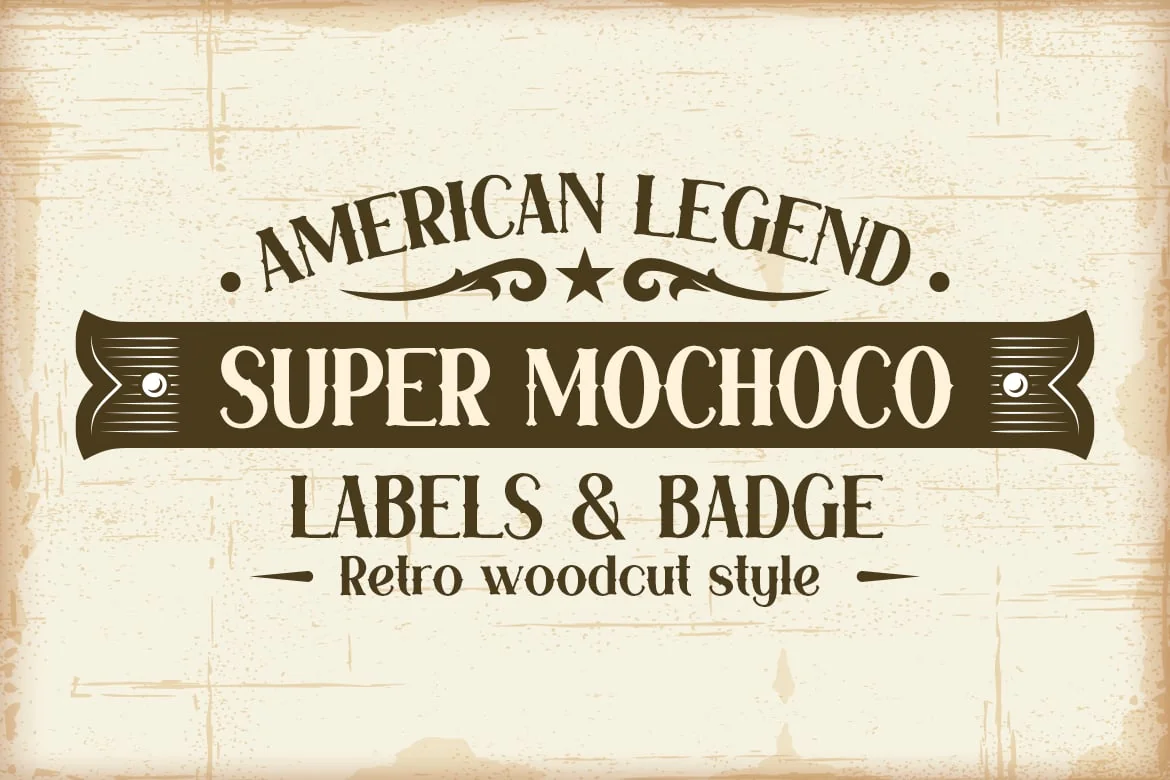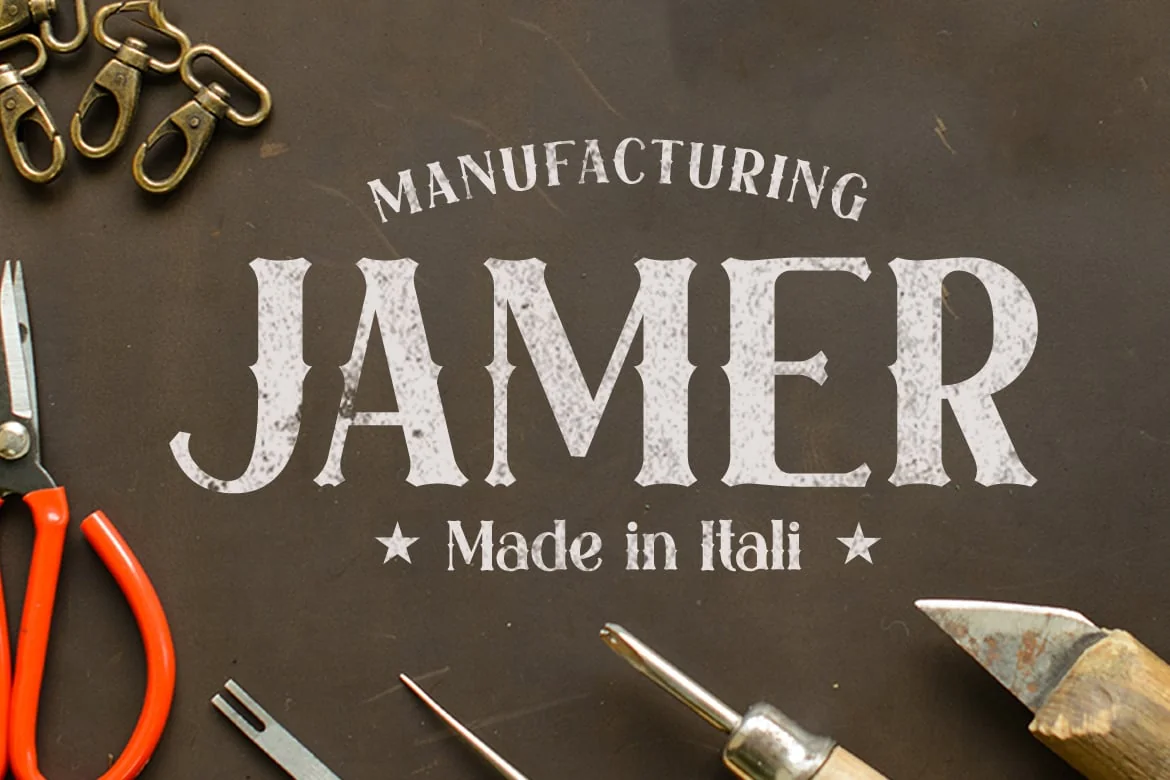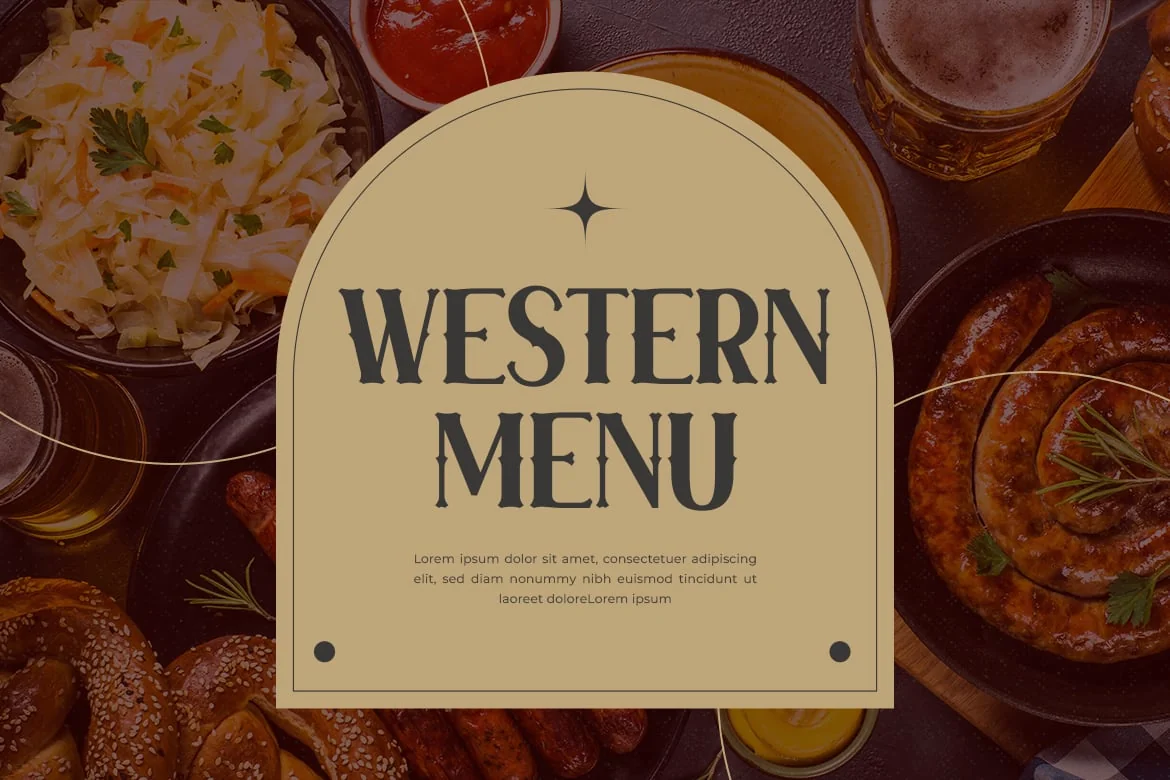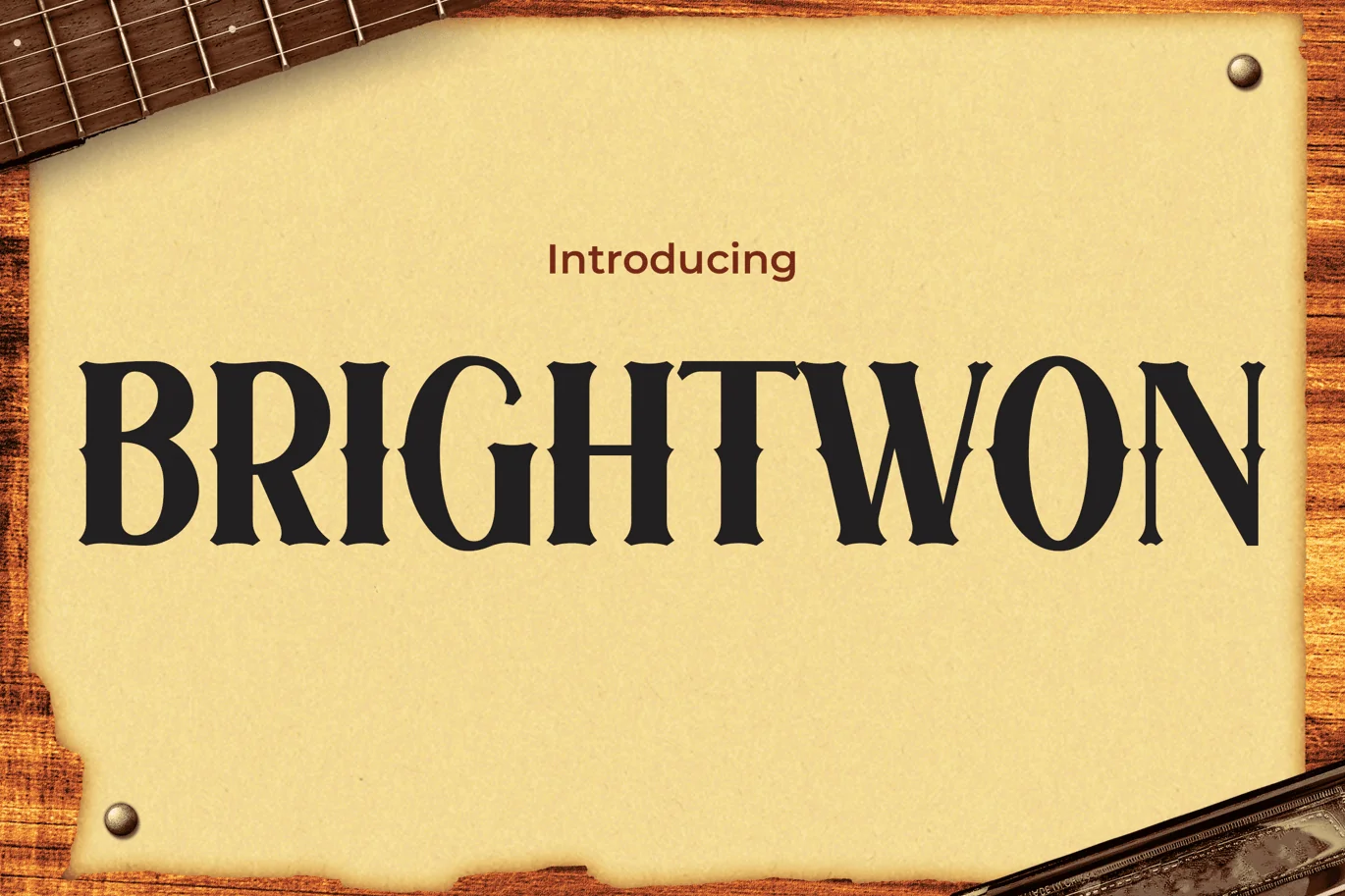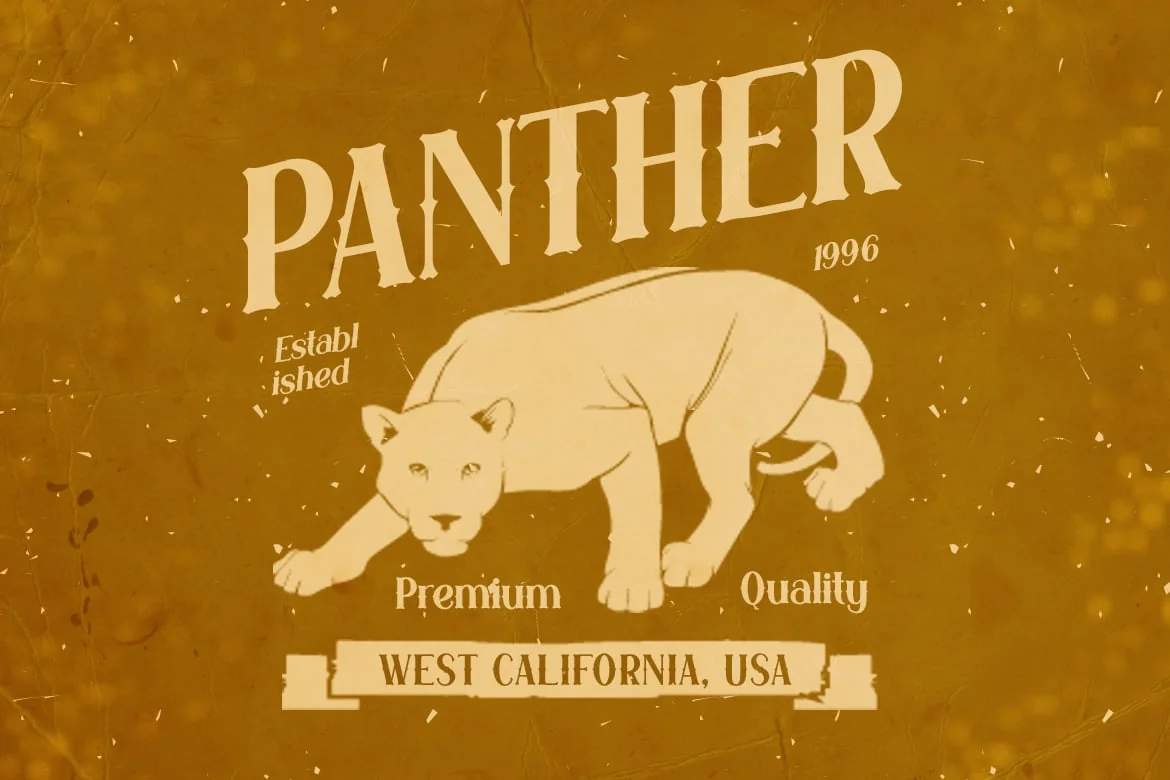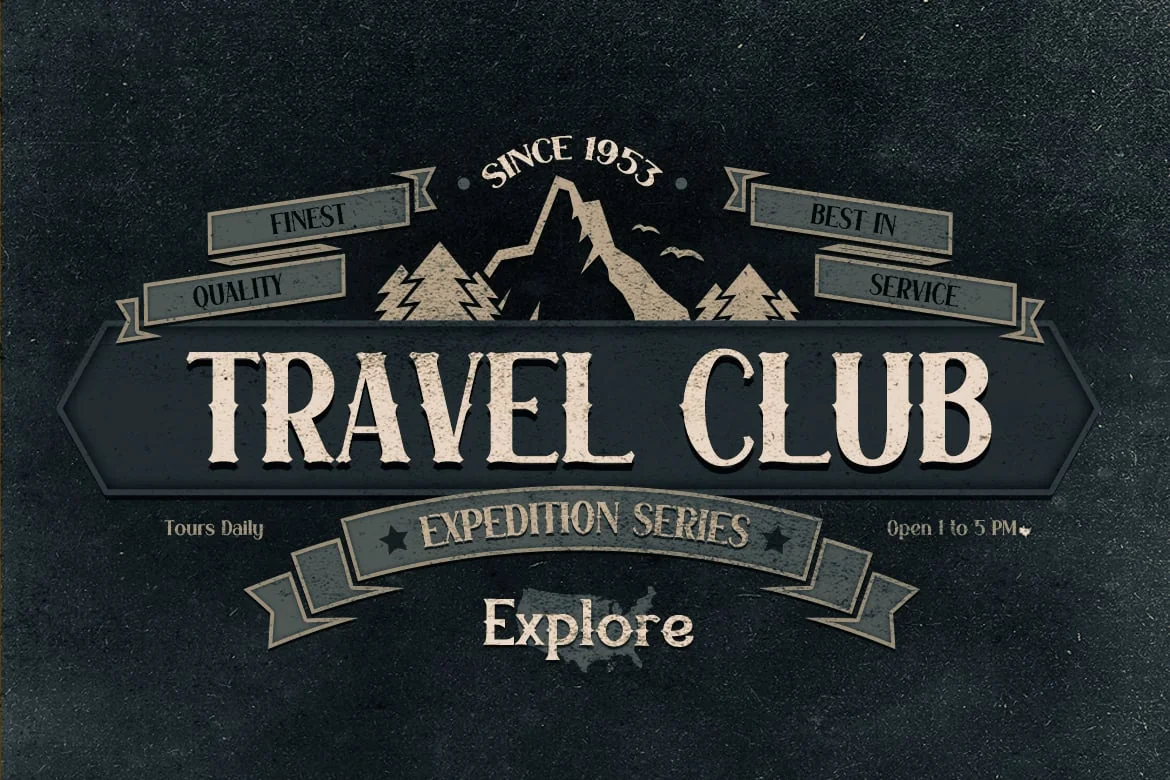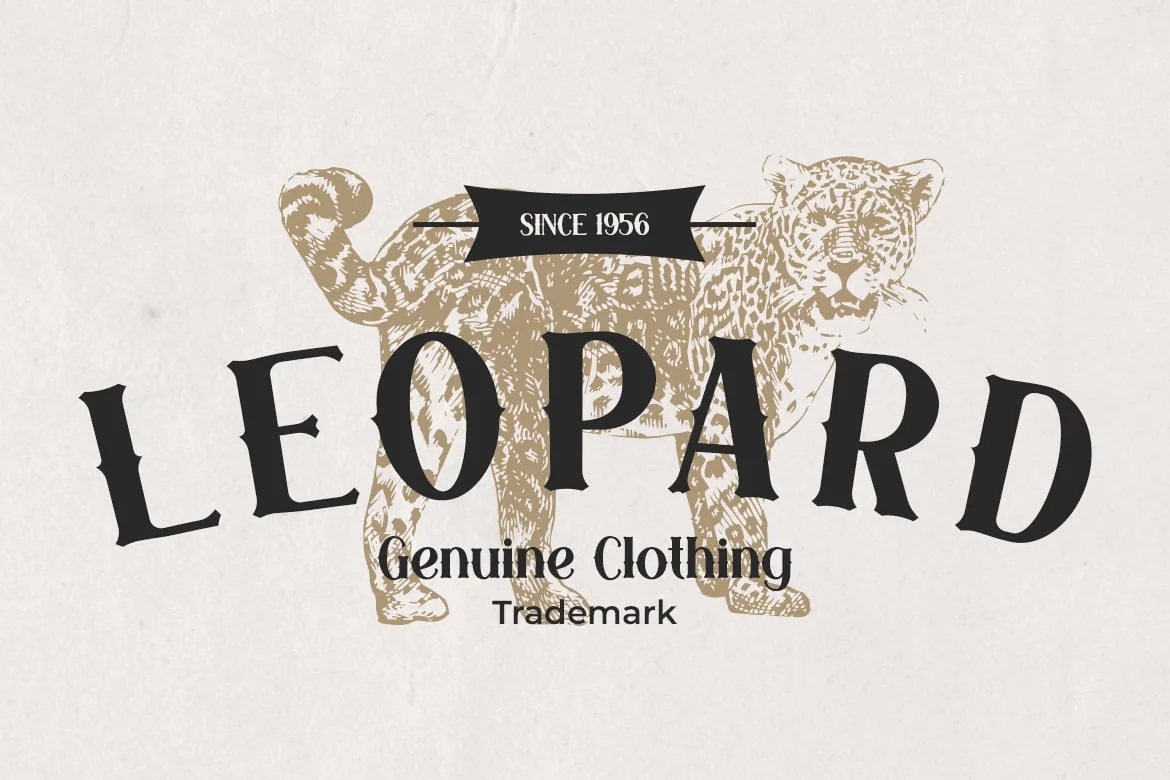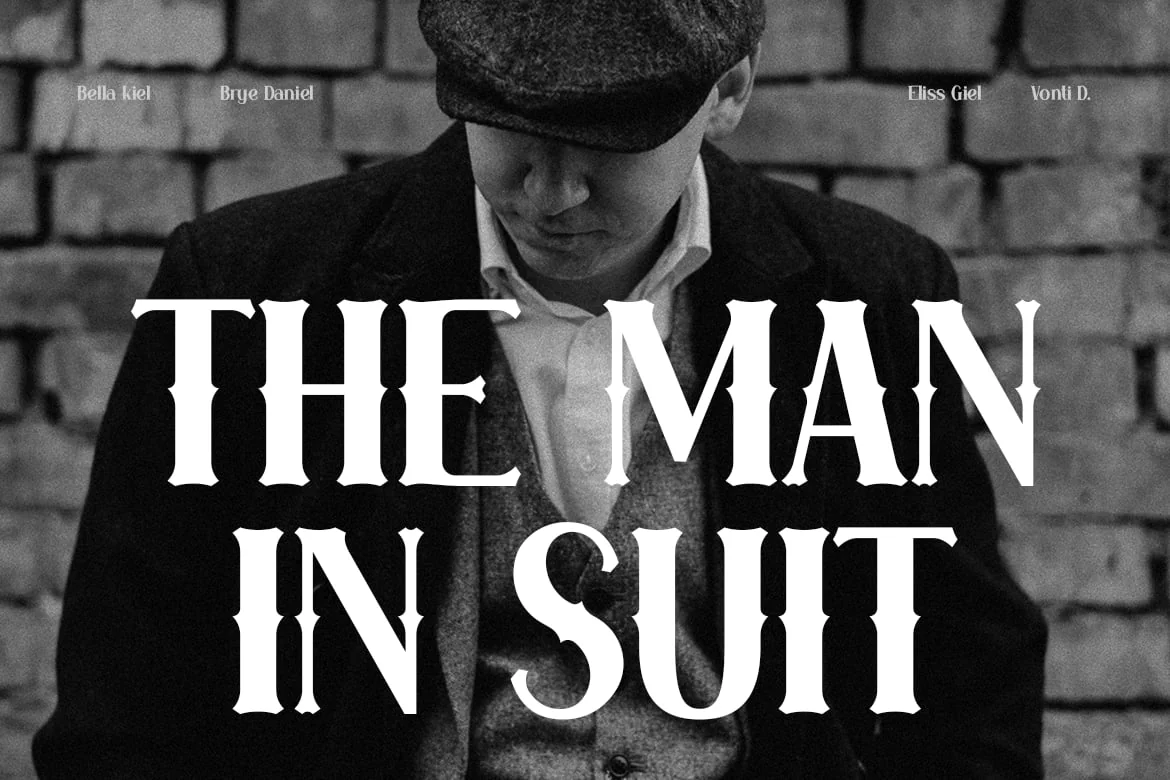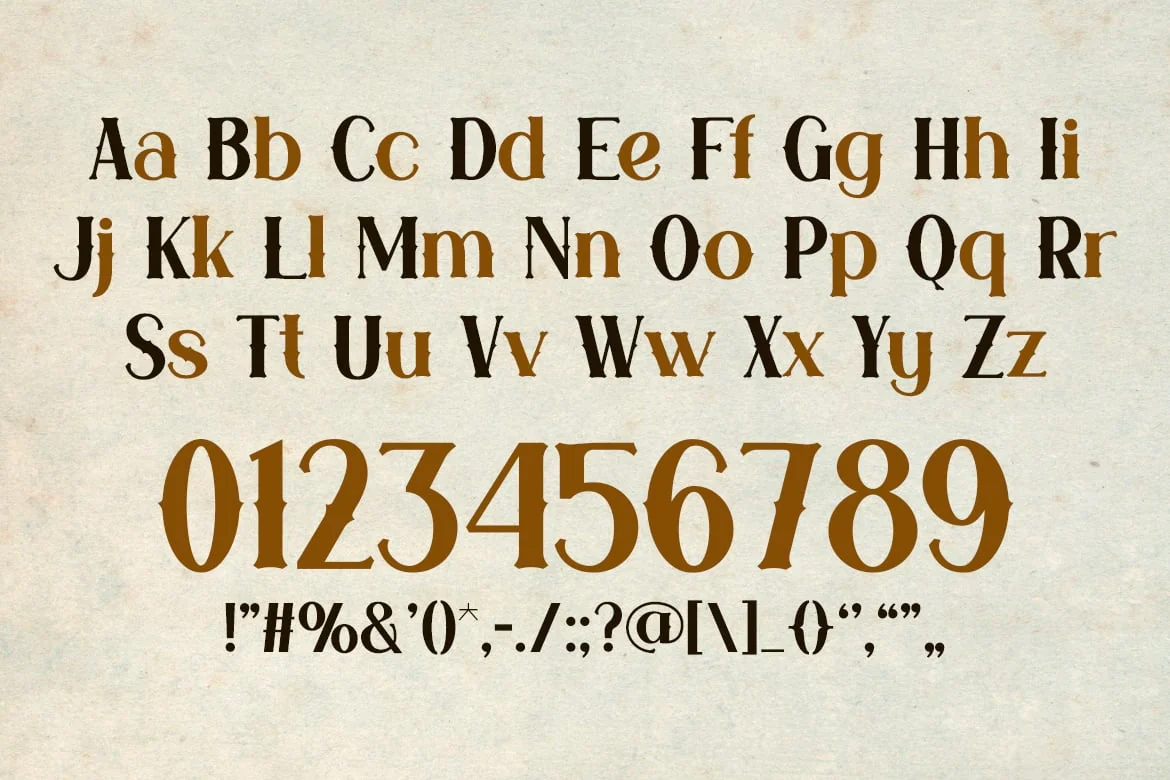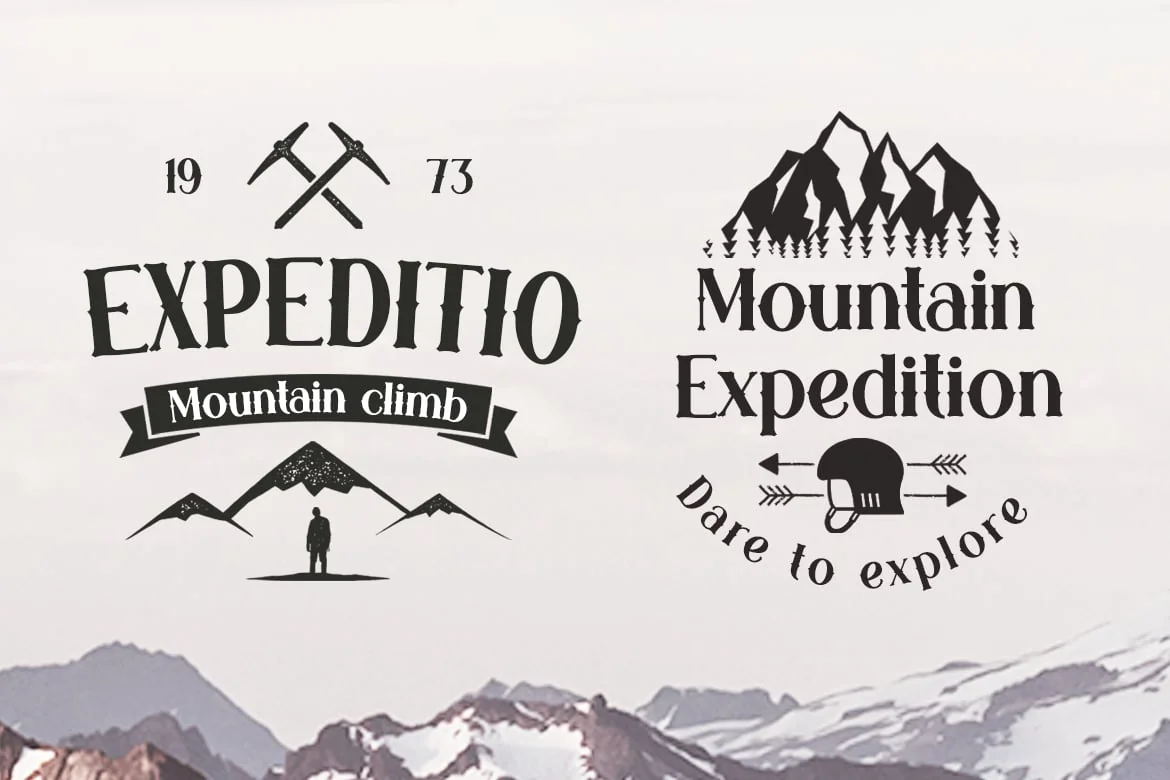
Western Vintage Font – Brightwon
Brightwon is a vintage font that captures the rugged charm of the Wild West with a stylish Western twist. This font is ideal for bringing a touch of cowboy authenticity to various design projects. Whether crafting standout logos, engaging quotes, or heartfelt invitations, Brightwon adds a layer of retro authenticity that’s hard to miss. Its Western and cowboy aesthetic is perfect for posters and greetings that evoke the spirit of the frontier, and its bold, distinctive style enhances packaging and branding with a sense of old-world adventure. Brightwon also excels in creating eye-catching covers, event materials, and dynamic advertising headlines that demand attention and convey a timeless, adventurous feel.